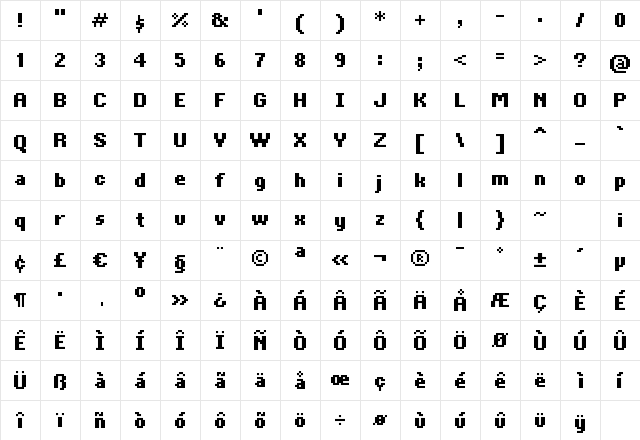
Bit KitBold Regular
Design Context for Bit KitBold Typeface
Bit KitBold is a composed and adaptable typeface that performs quietly and consistently across a wide range of design contexts. Its bold stroke weight gives it real presence on the page.